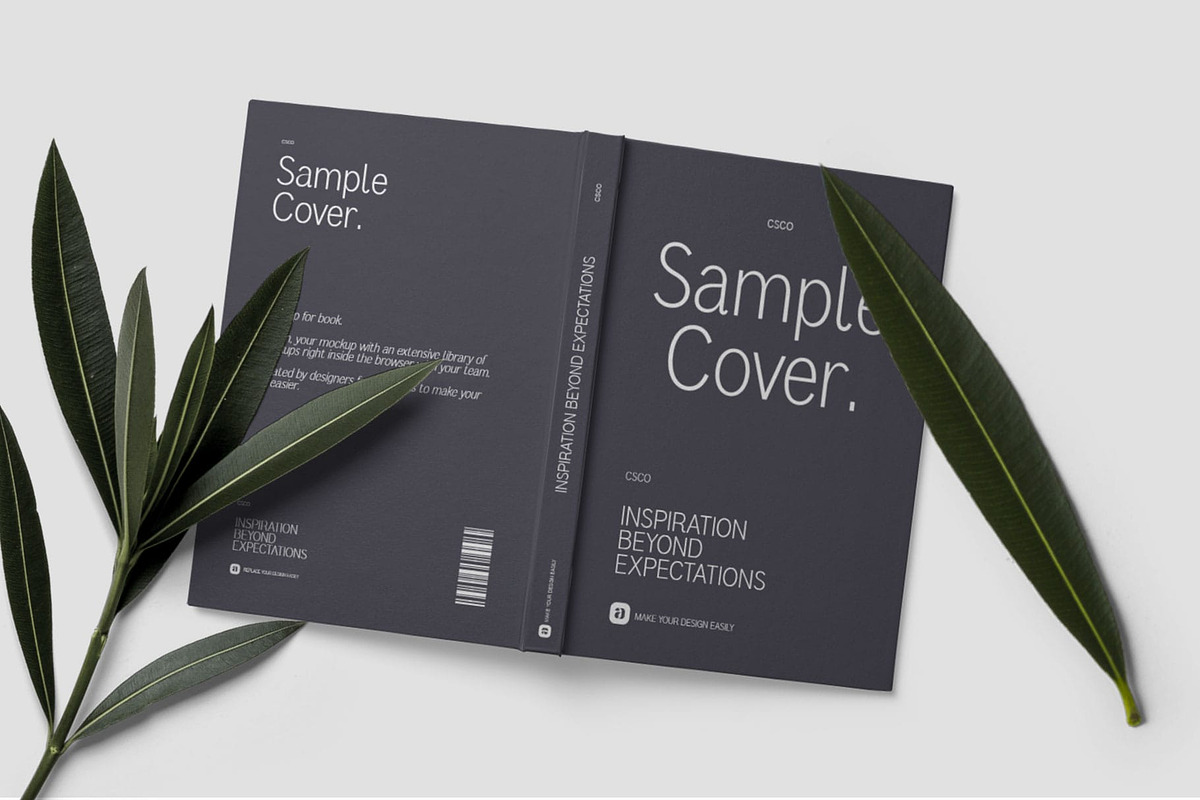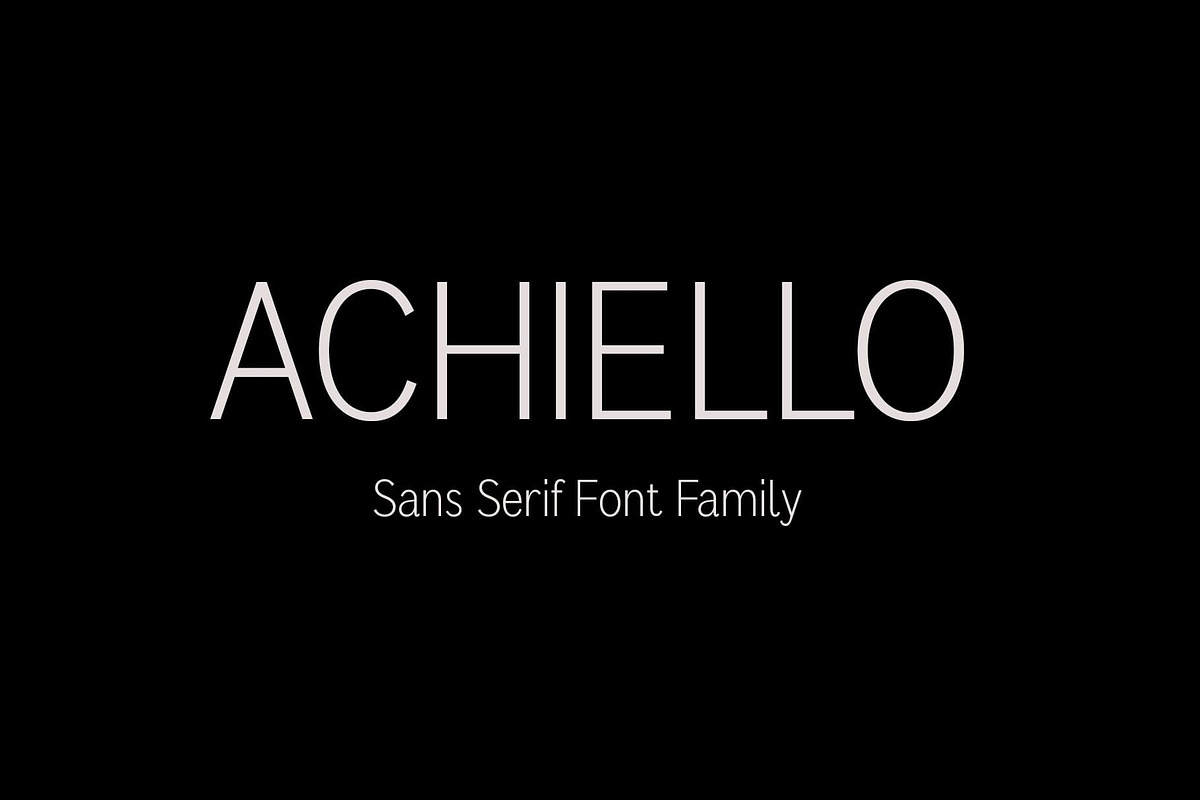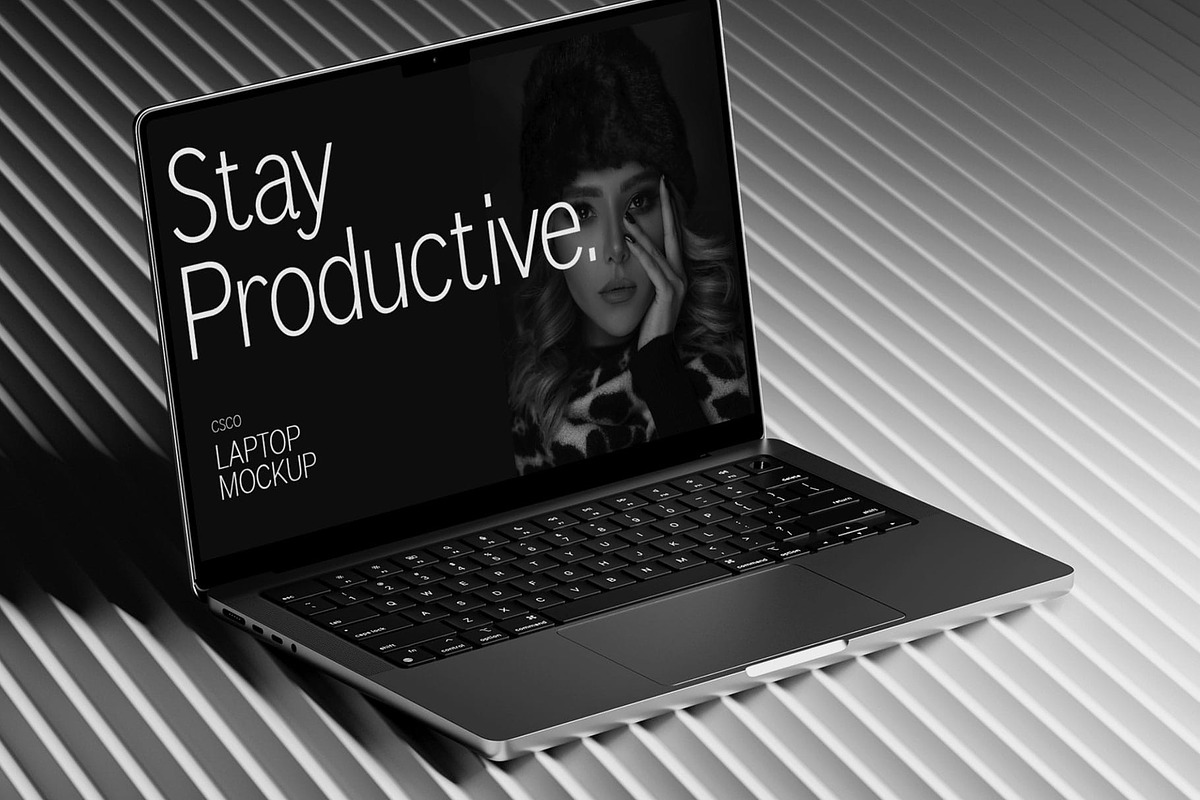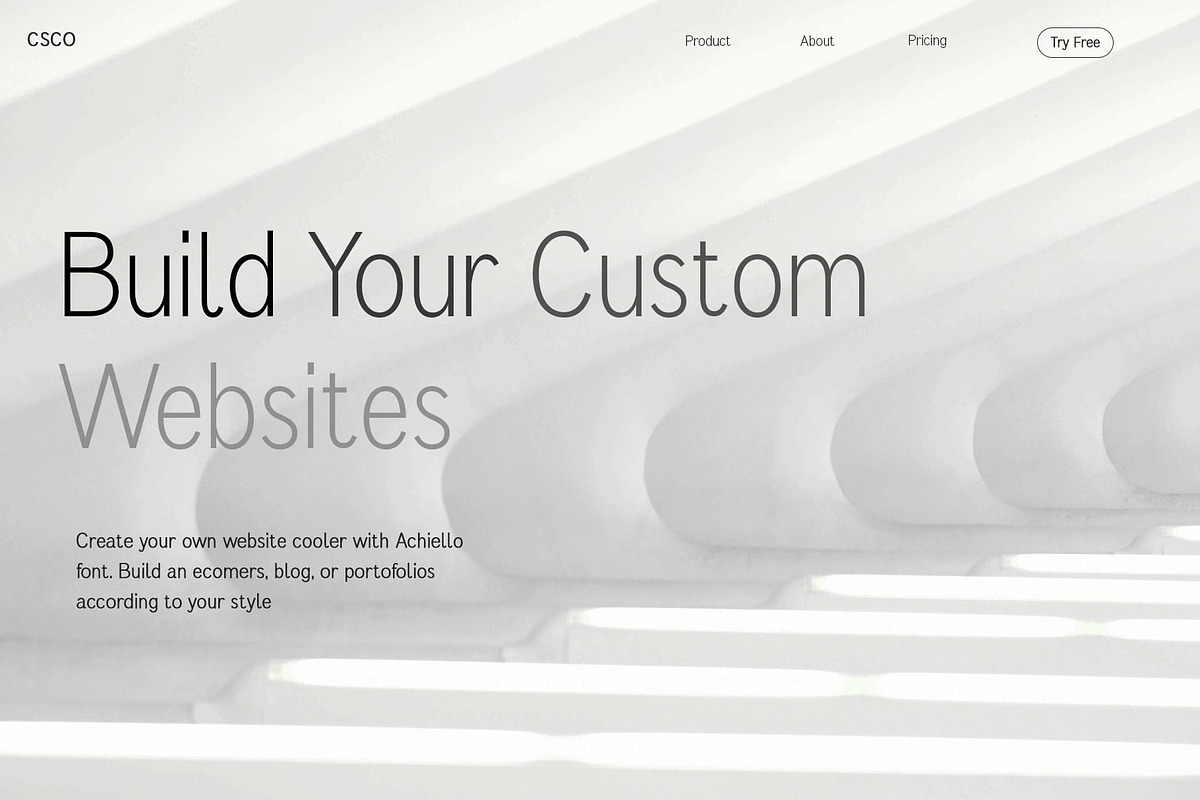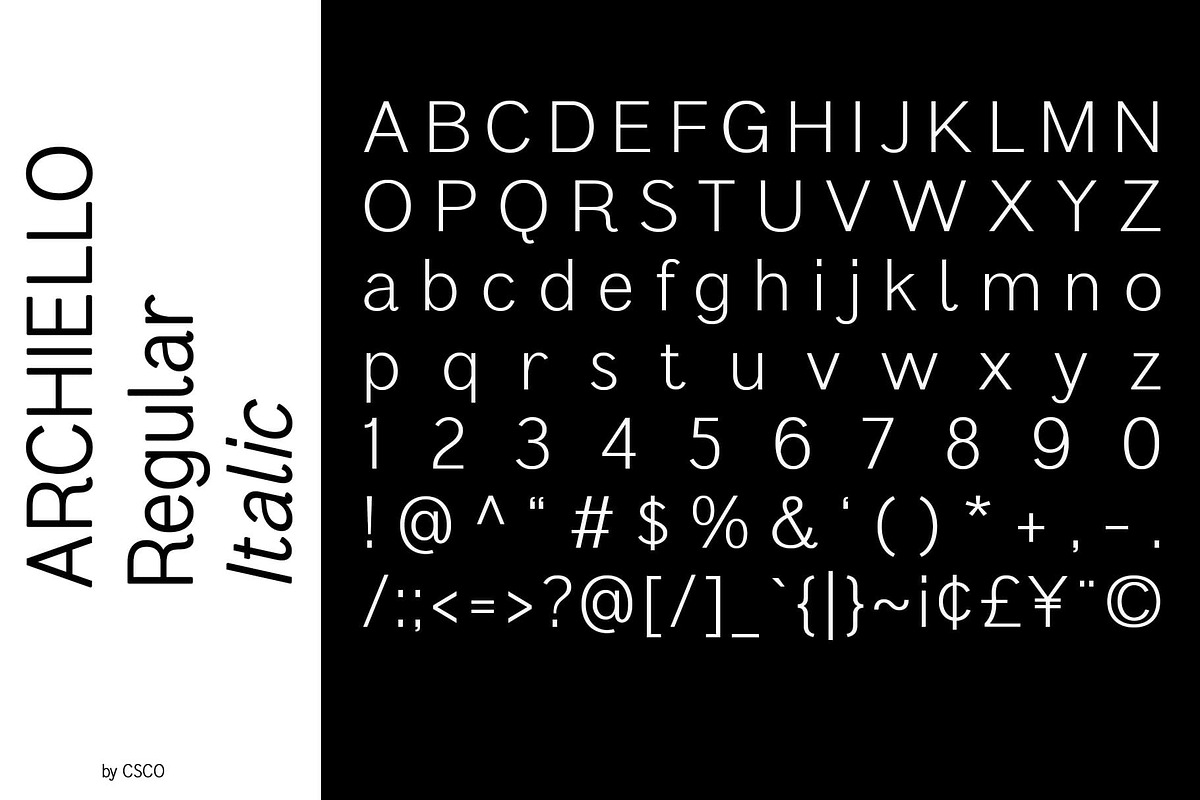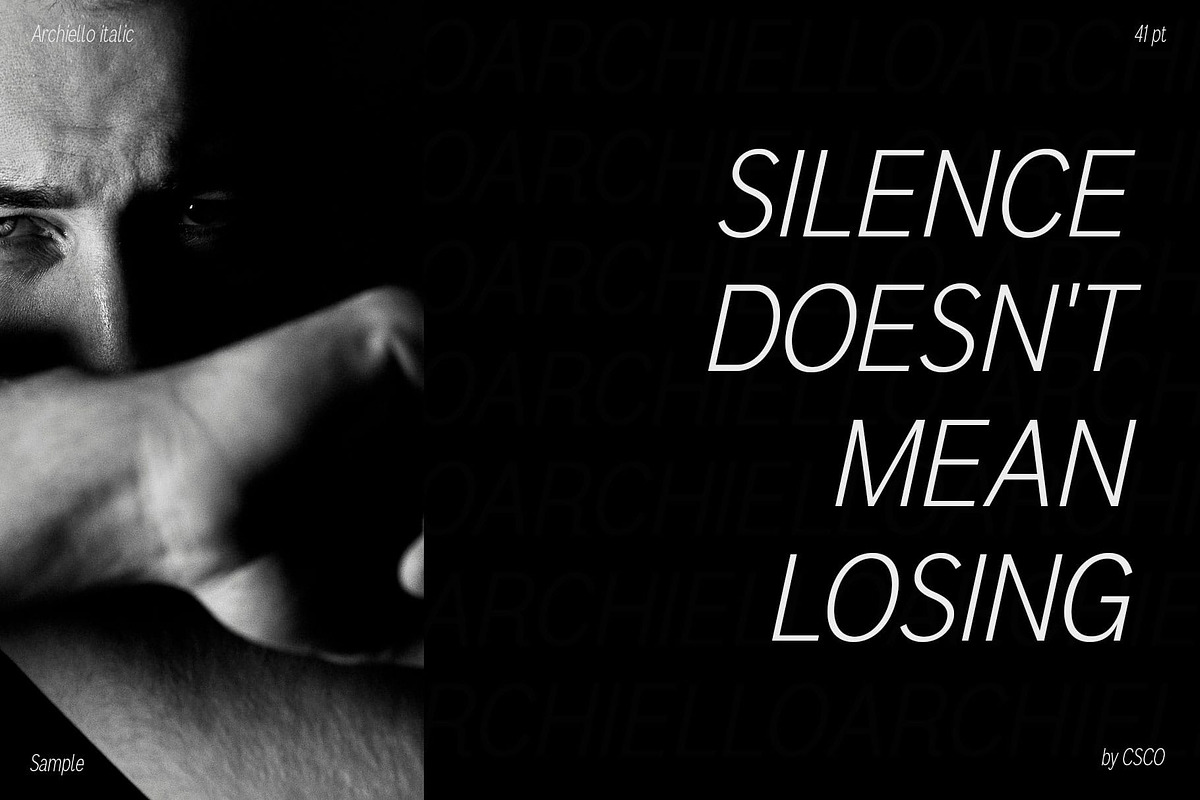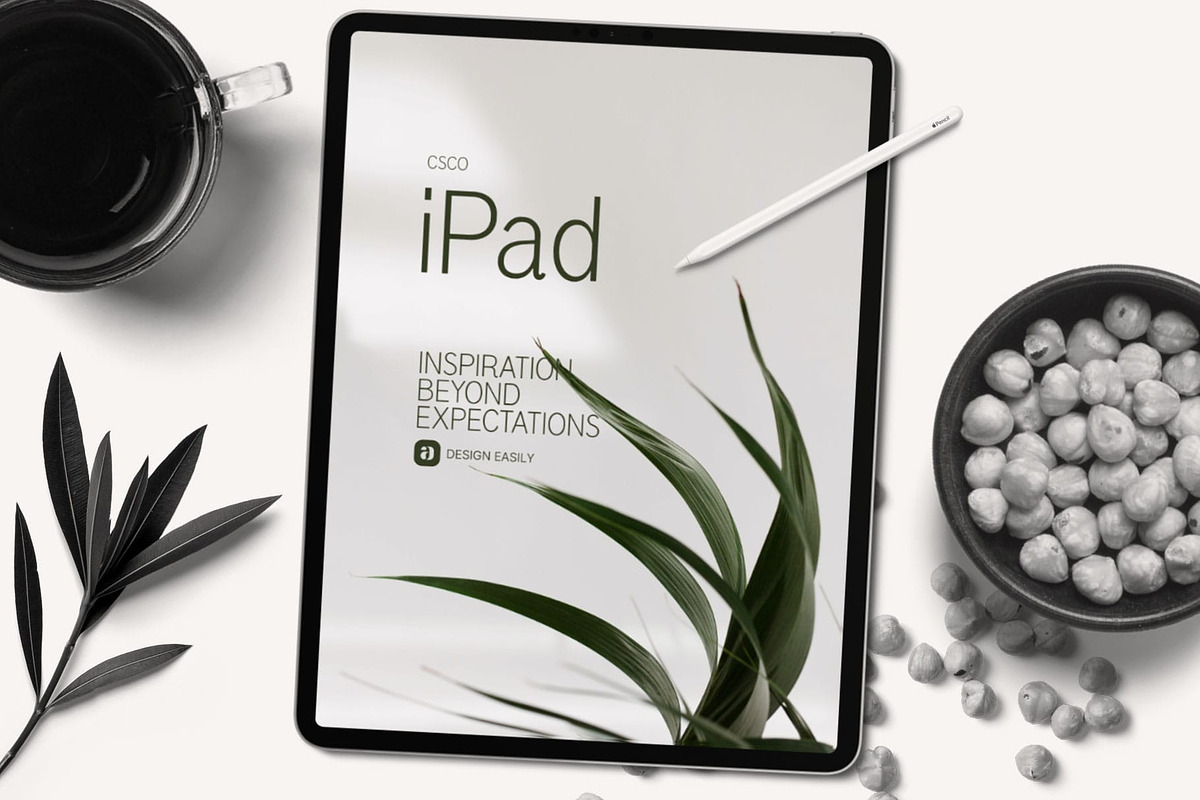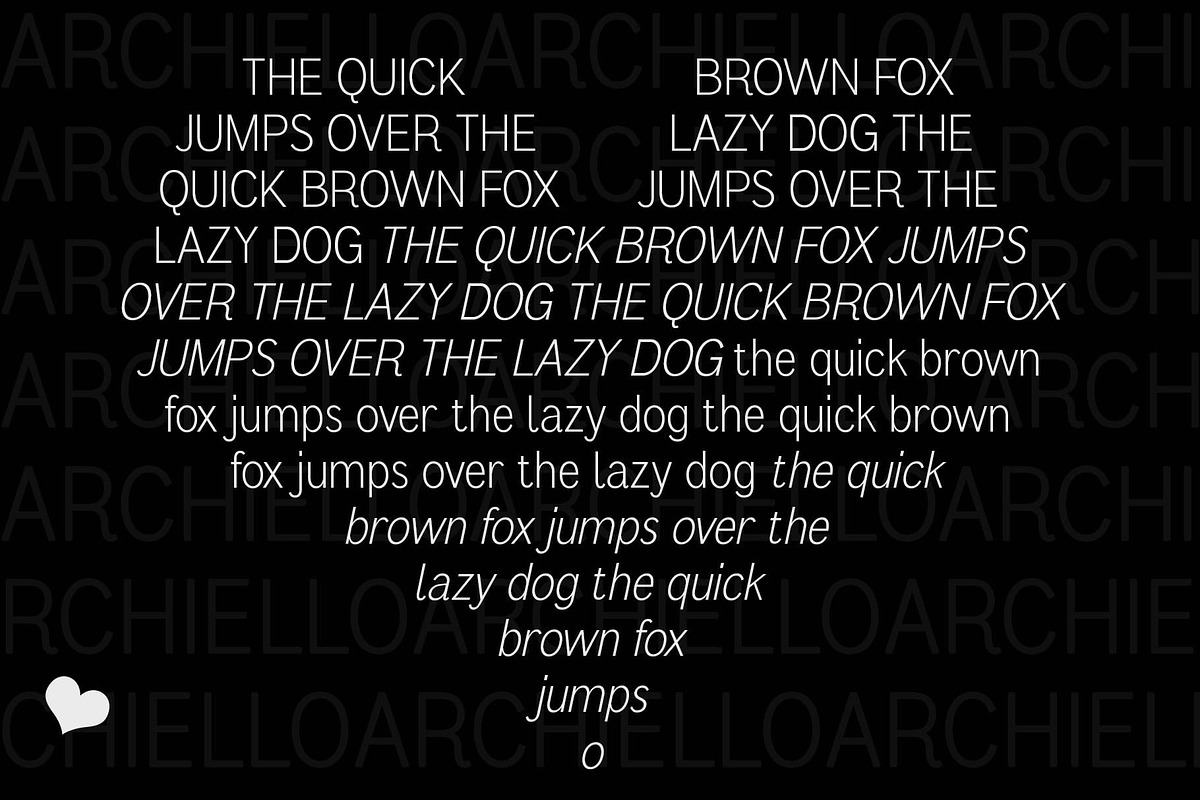
Achiello – Humanist Sans Serif
Achiello: A Humanist Sans Serif Marvel
The Essence of Humanity in Type Achiello, a masterpiece in the realm of fonts, brings forth a humanist sans serif style that seamlessly merges boldness with friendliness.
Bold and Inviting The commanding strokes of Achiello exude a sense of authority while maintaining a friendly allure, making it a versatile choice for various design needs.
A Universal Communicator Achiello serves as a universal communicator, delivering messages with clarity and warmth, ensuring a pleasant reading experience across diverse content.
Friendly Across Designs From corporate communication to digital interfaces, Achiello’s humanist touch bridges the gap between professionalism and approachability, creating a harmonious blend in any design.
Conclusion Achiello is more than a font; it’s a design companion that speaks the language of humanity. With its humanist sans serif style, Achiello effortlessly adds a touch of warmth and authority to your creative endeavors, ensuring that your message is both heard and felt.